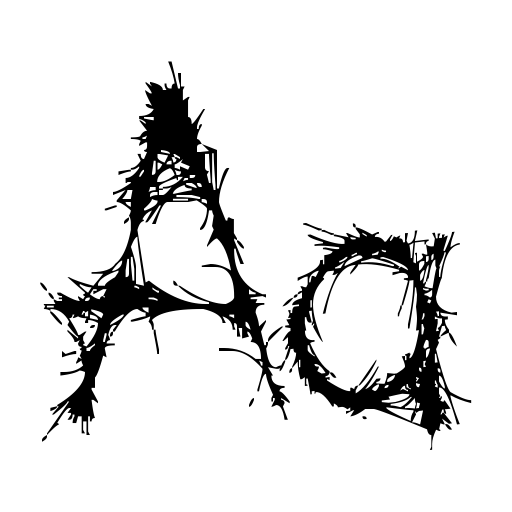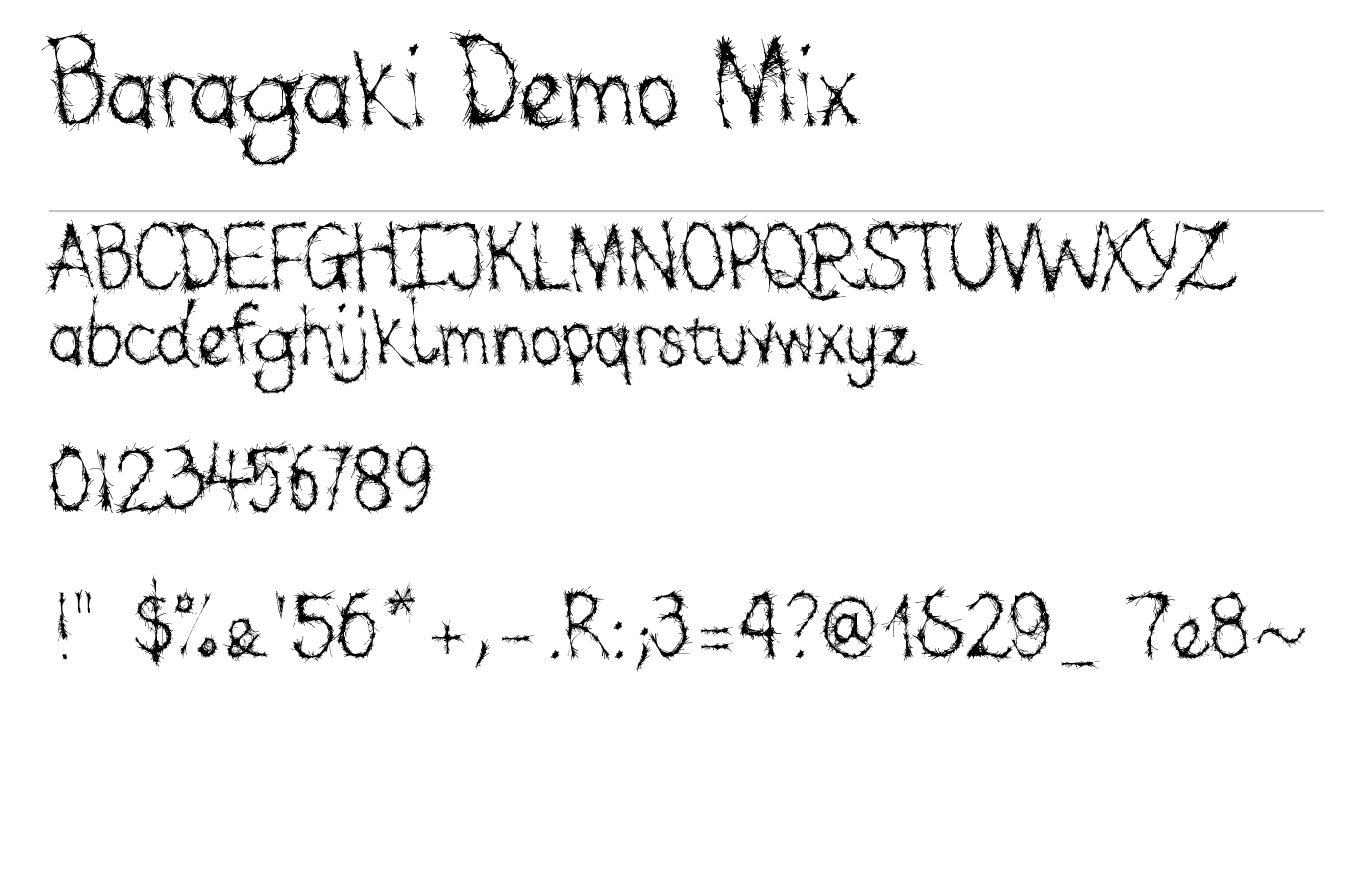
Baragaki Demo Mix is an edgy, decorative sans serif font with rough, thorny strokes that give it a wild and expressive look. Its irregular, hand-drawn style makes it ideal for creative projects that want to stand out with a bold, unconventional vibe. This font works well for headlines, posters, or branding that aims to convey raw energy and uniqueness.
Baragaki Demo Mix Font
About Baragaki Demo Mix Font
| Font family | Baragaki Demo Mix Font |
| Designer | Le Thi Thu Huong a.k.a Poemhaiku a.k.a PxP |